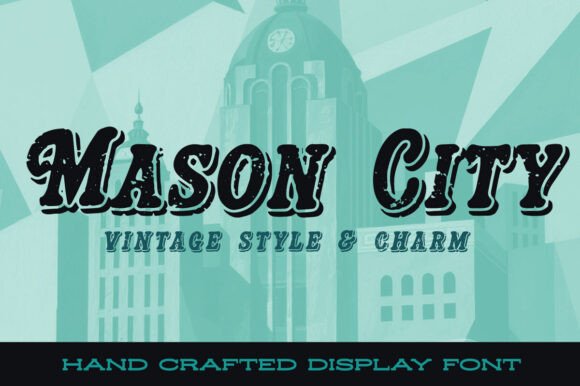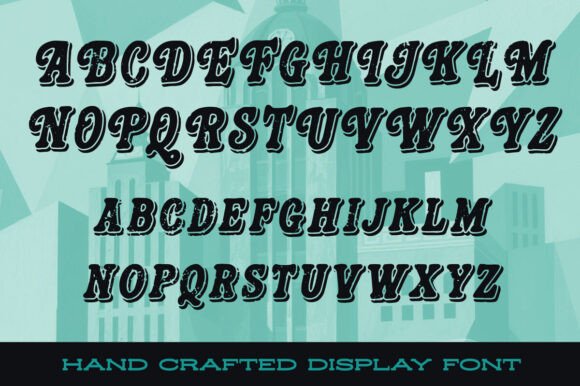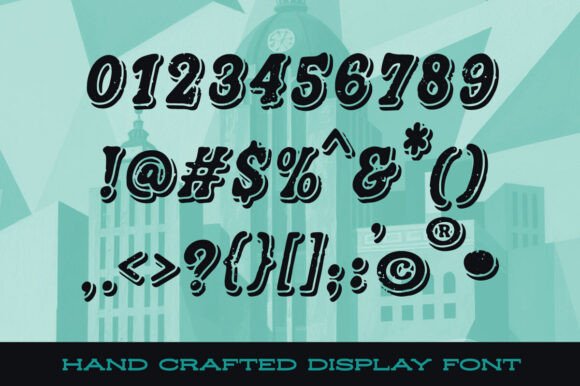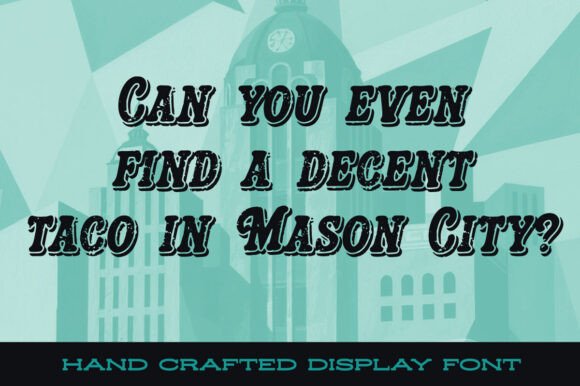
Mason City Font: Retro Serif for Vintage Branding & Logo Design
About the Mason City Font
Let us introduce you to Mason City Font, where timeless design meets modern craftsmanship. ‘Mason City’ is a retro-style rounded serif font with a warm, organic feel and a subtle drop shadow for added depth. Its smooth curves and slightly weathered texture evoke a nostalgic charm, reminiscent of vintage signage, old storefronts, and classic advertisements. The font’s gentle distressing gives it an authentic, timeworn appeal, making it perfect for branding, packaging, and designs that need a touch of old-school personality with a handcrafted touch.
Mason City excels in headline applications, short-form text on packaging, and vintage-inspired branding projects. Its nostalgic charm works well for logos, posters, and short promotional materials where its handcrafted texture adds visual interest. However, its retro styling and subtle shadowing make it less suitable for body text or UI elements requiring high readability. Long paragraphs set in Mason City will be visually tiring.
For optimal pairings, consider complementing its rounded serifs with a clean sans-serif like Open Sans for body copy, or a geometric sans-serif like Futura for a more modern contrast. A script font with similar warmth, such as Pacifico, could add a touch of elegance to supporting text in specific applications.
The overall personality of Mason City is friendly and nostalgic, conveying a sense of warmth and approachability without being overly playful or childish. It’s best suited to brands that wish to project a vintage charm, artisanal quality, or a connection to history.
Mason City Font Usage Examples
Mason City Font Example